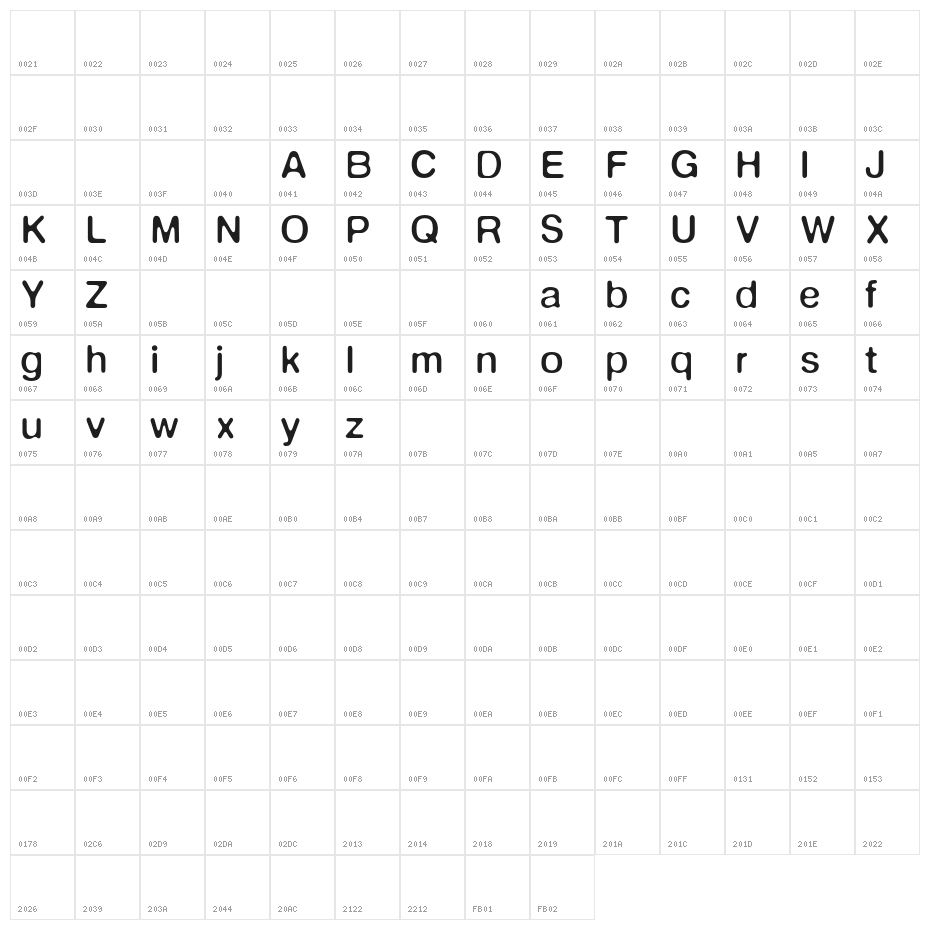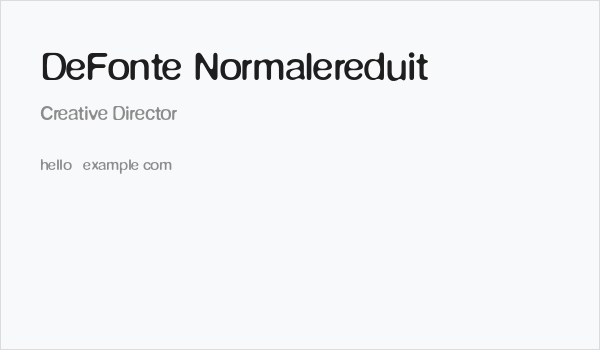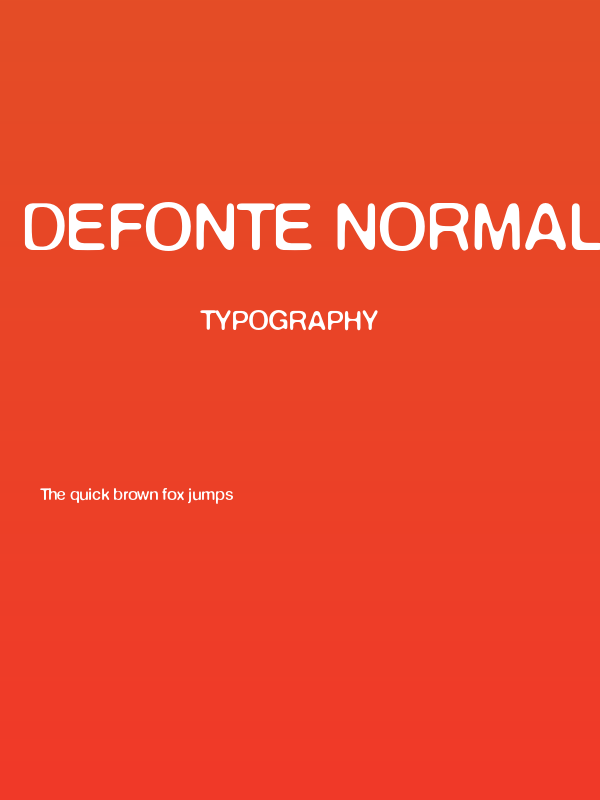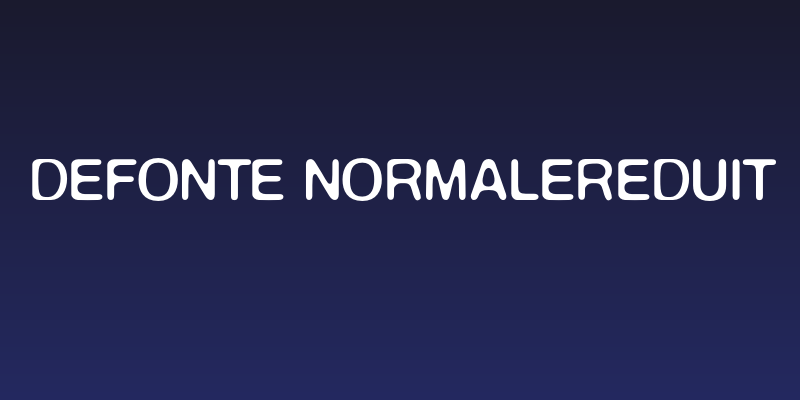
DeFonte-Normalereduit Font
DeFonte-Normalereduit Description
This font features a clean and rounded sans-serif style, characterized by its smooth curves and uniform stroke width. The letters are well-proportioned, offering a modern and approachable appearance. The rounded terminals give it a friendly and soft look, making it suitable for a variety of applications. Its simplicity and clarity ensure excellent readability, even at smaller sizes. The consistent weight across all characters provides a balanced and harmonious visual flow, making it ideal for both digital and print media.
| Proposed Projects | Ideal for branding, user interfaces, signage, and educational materials. |